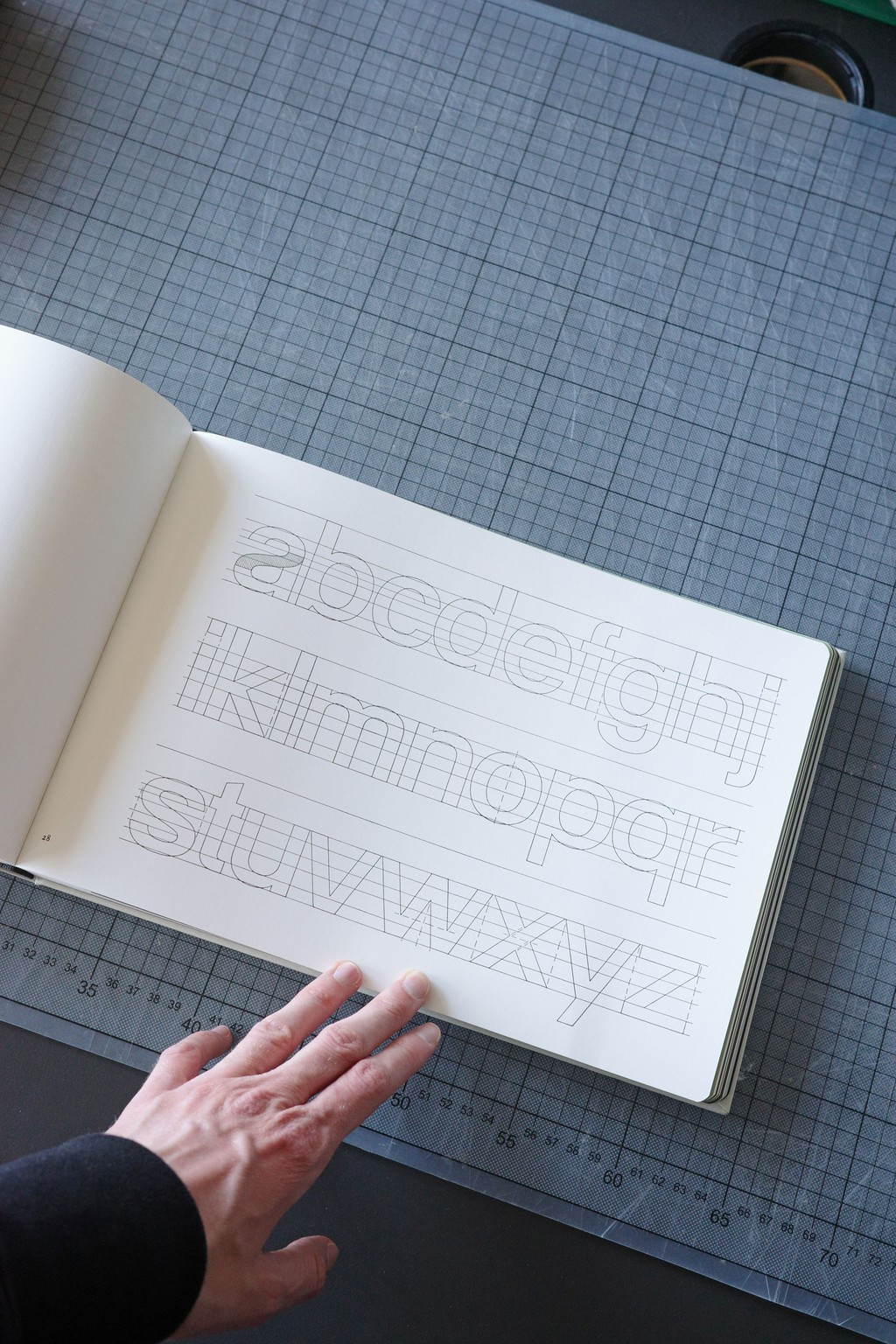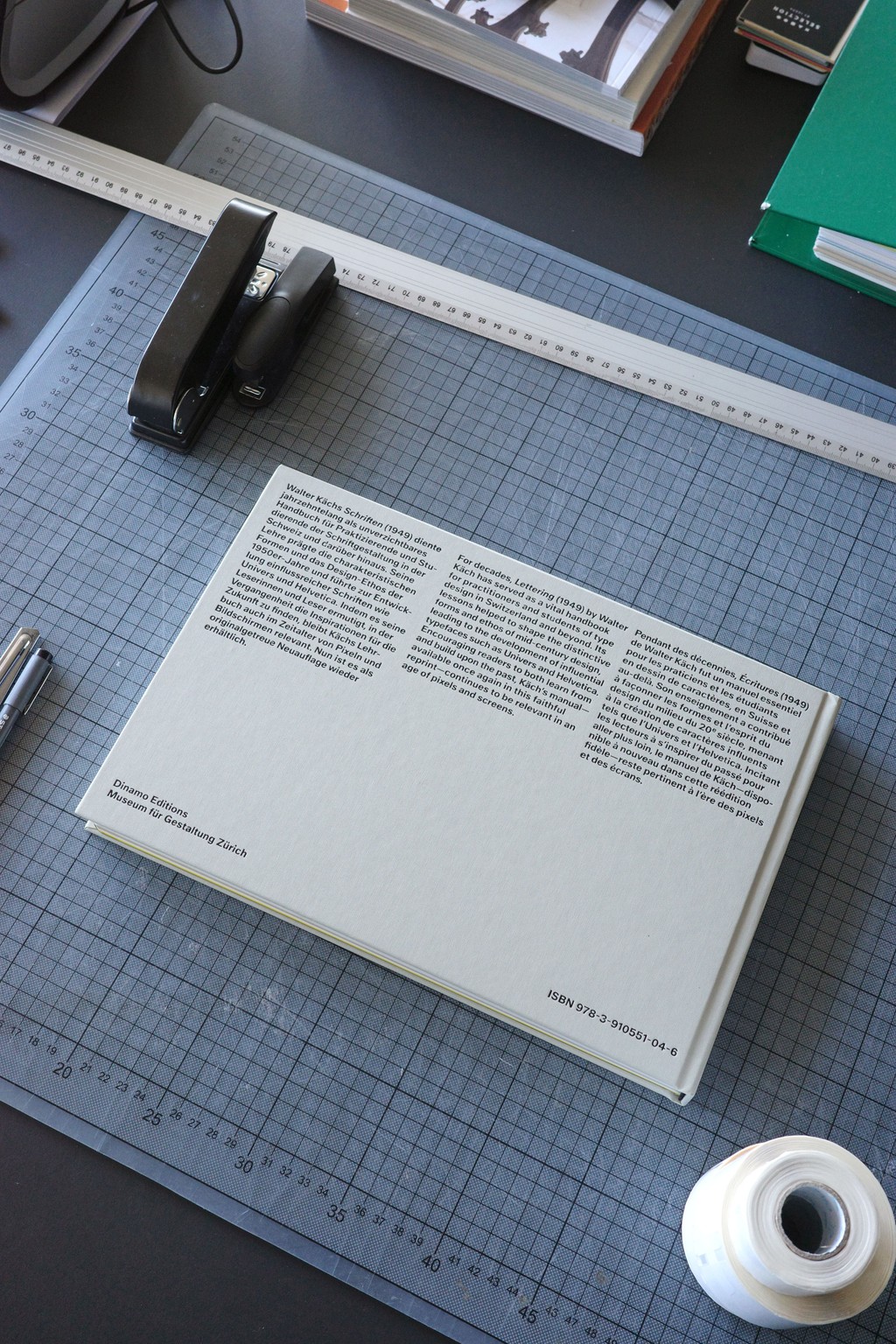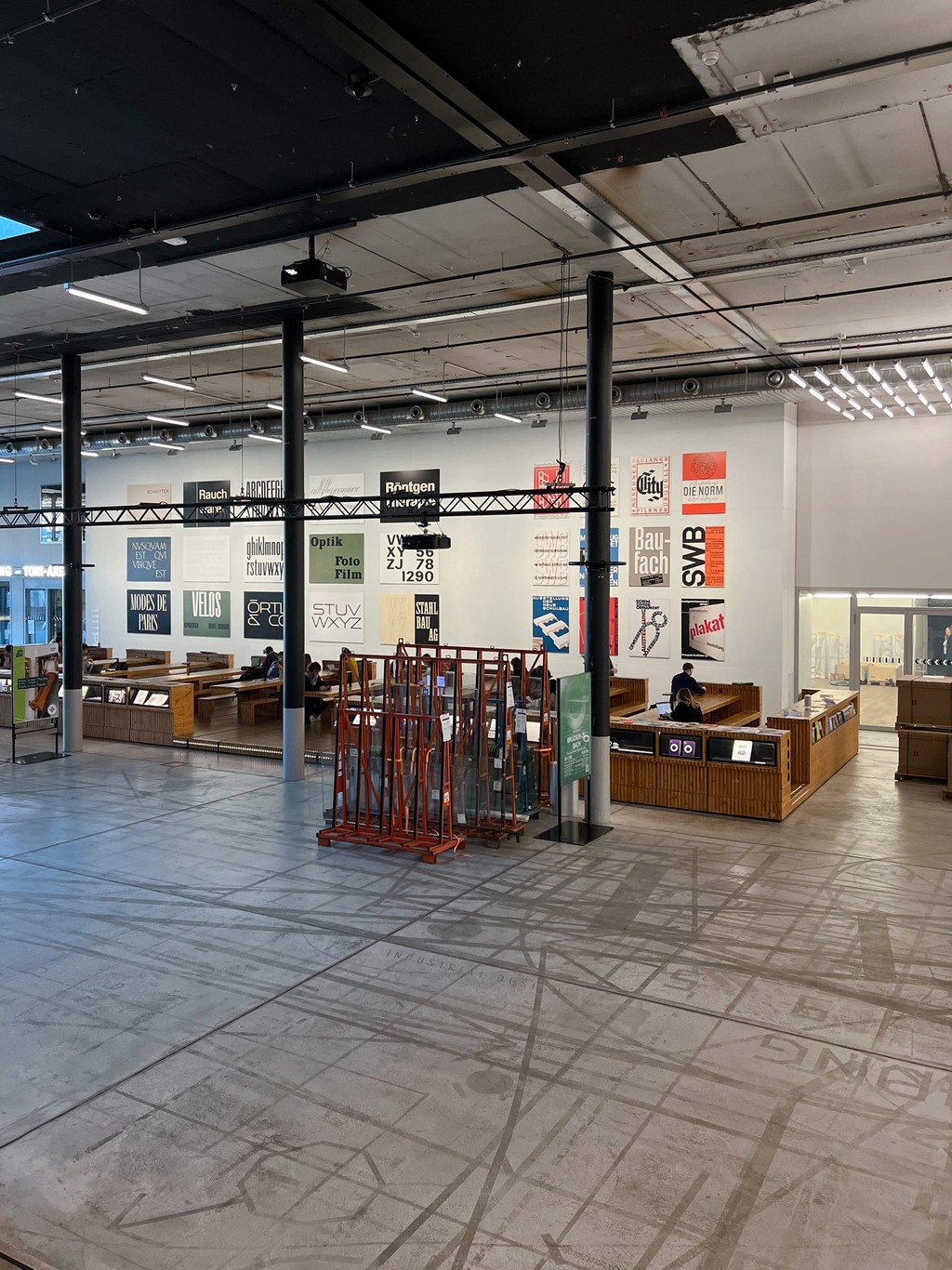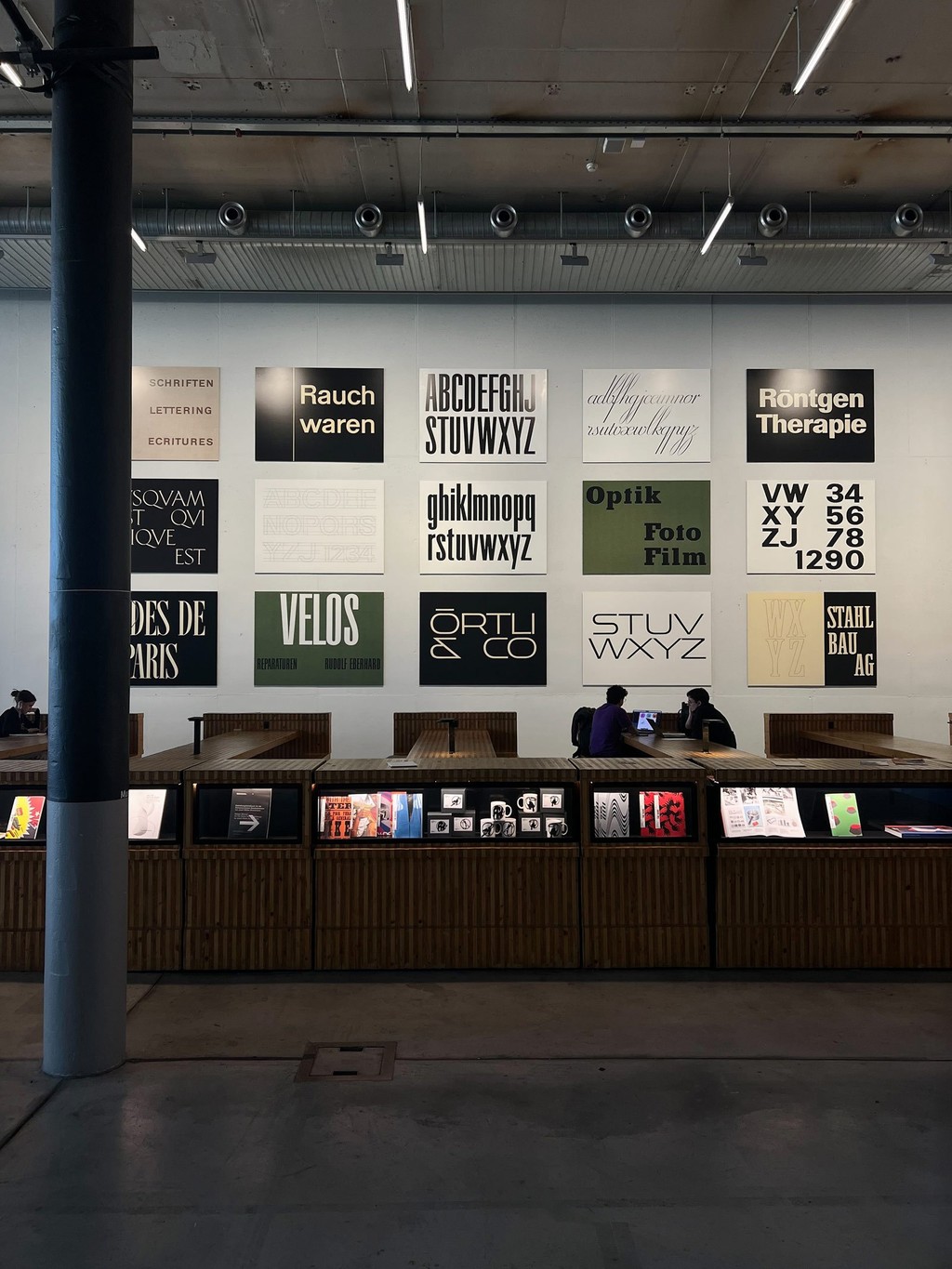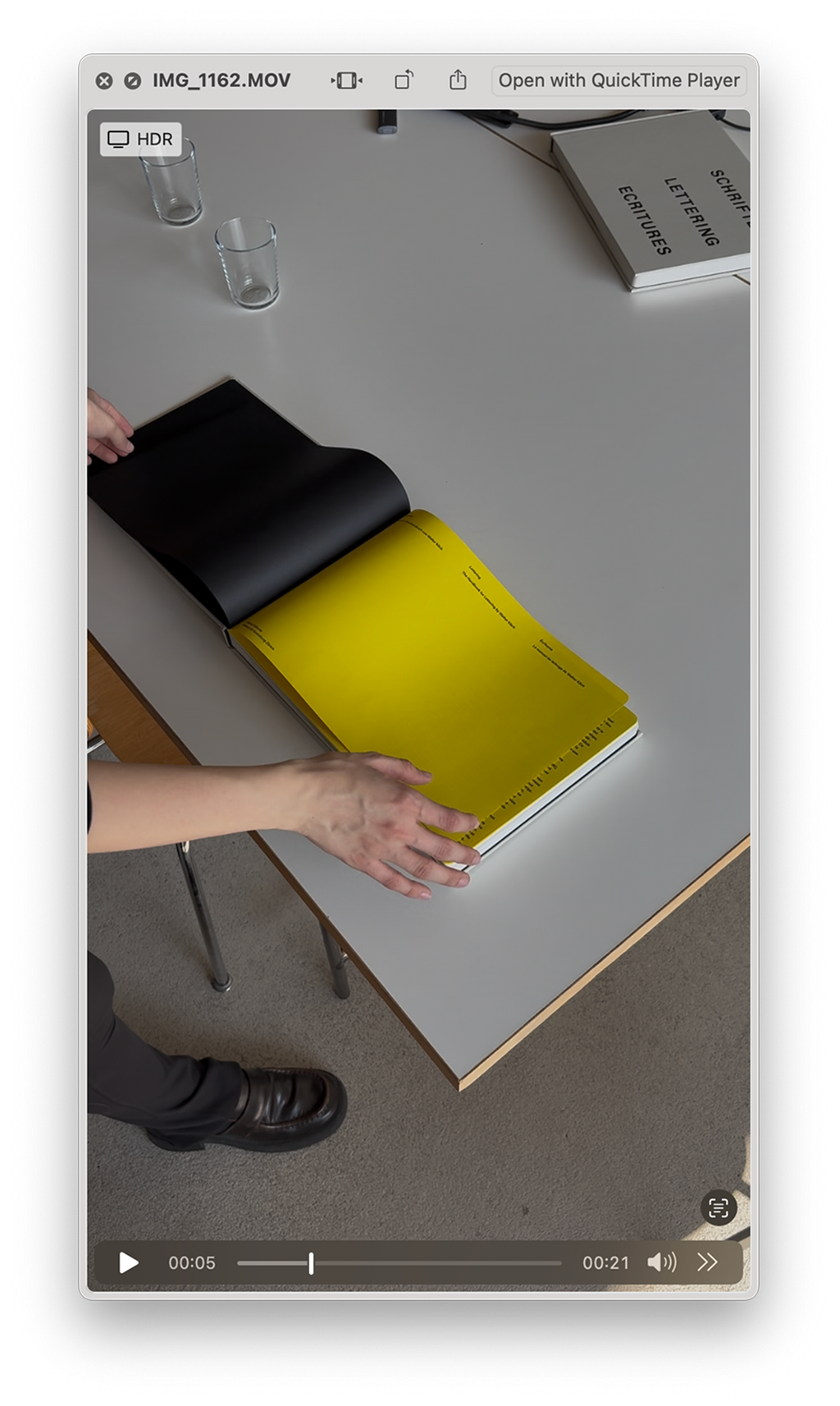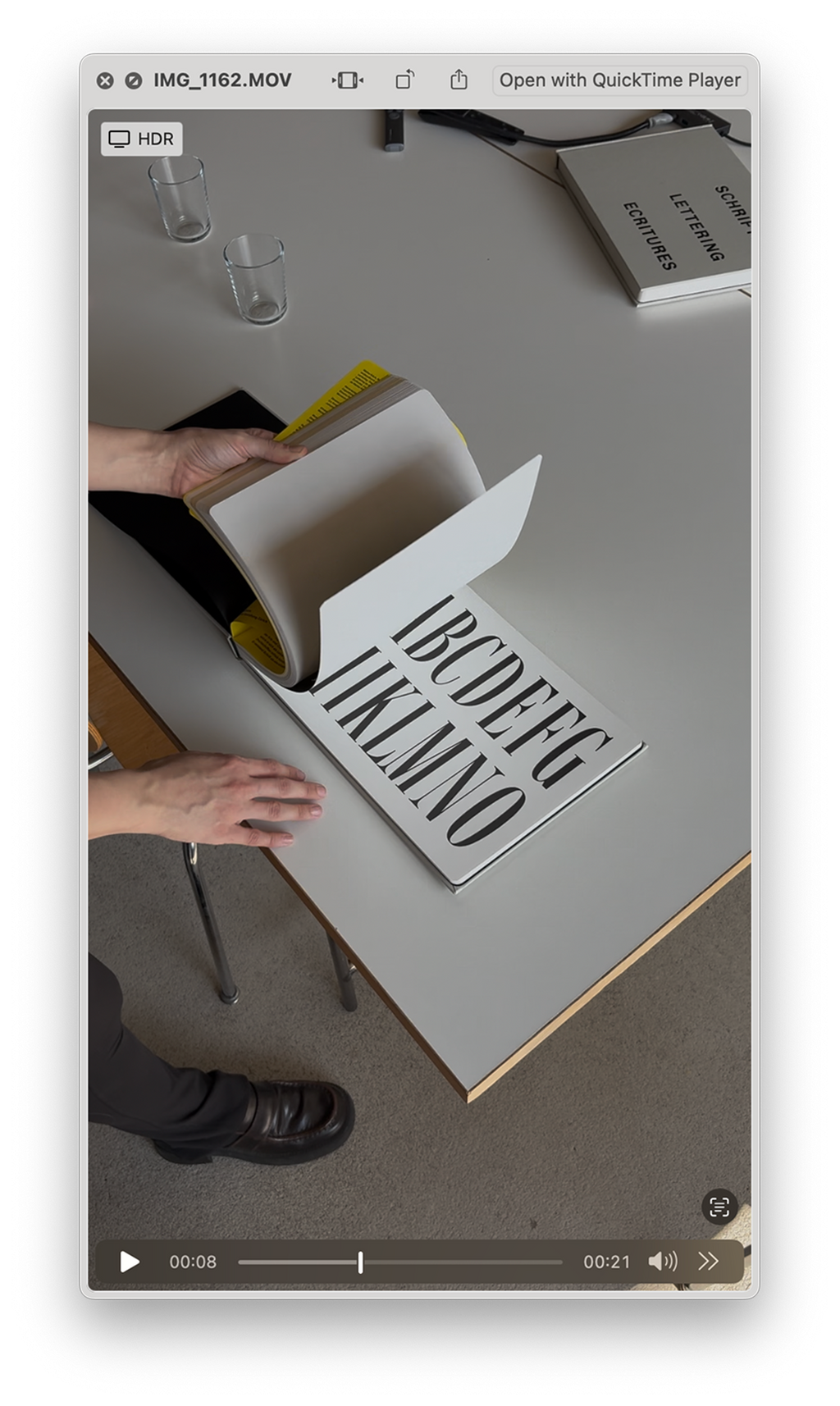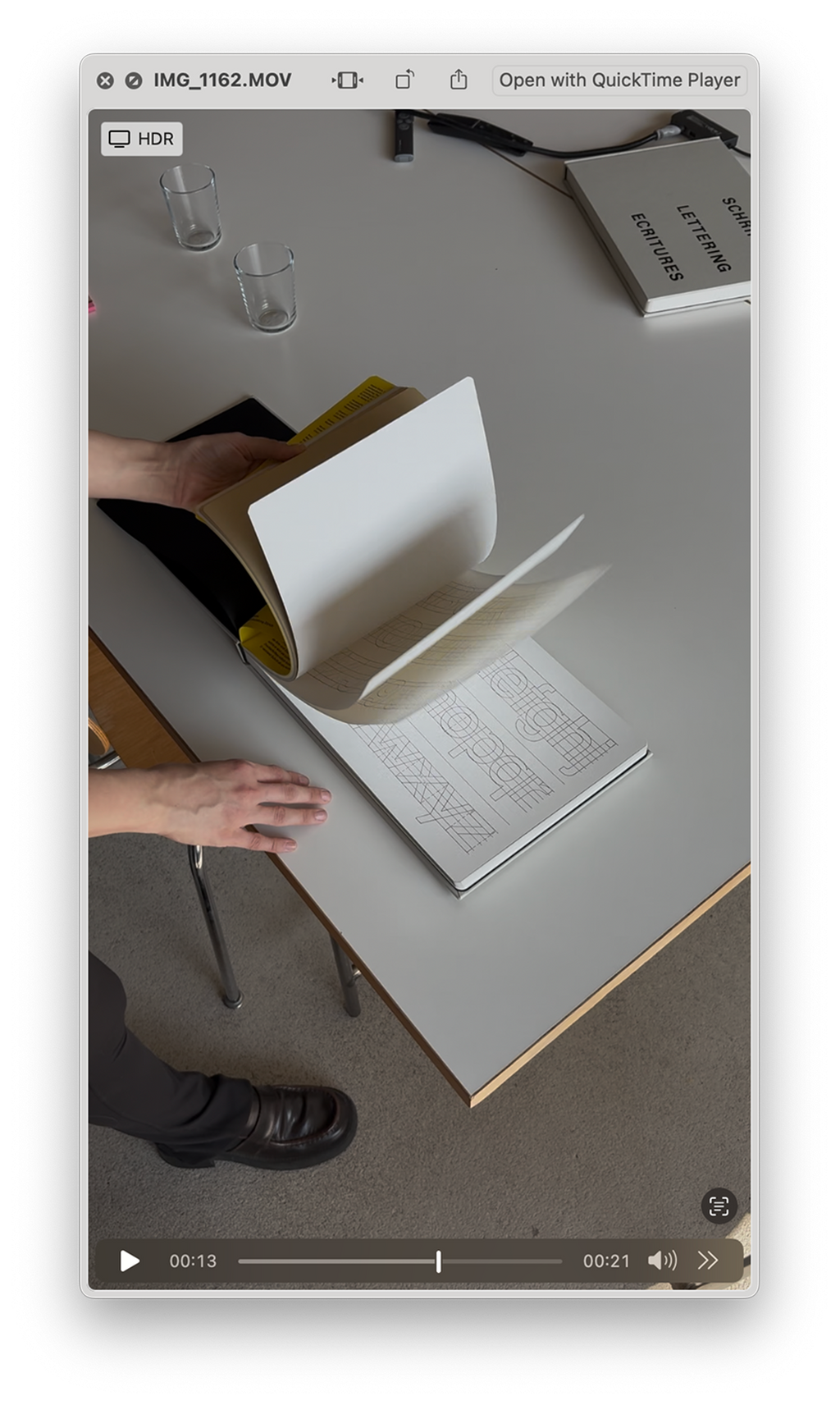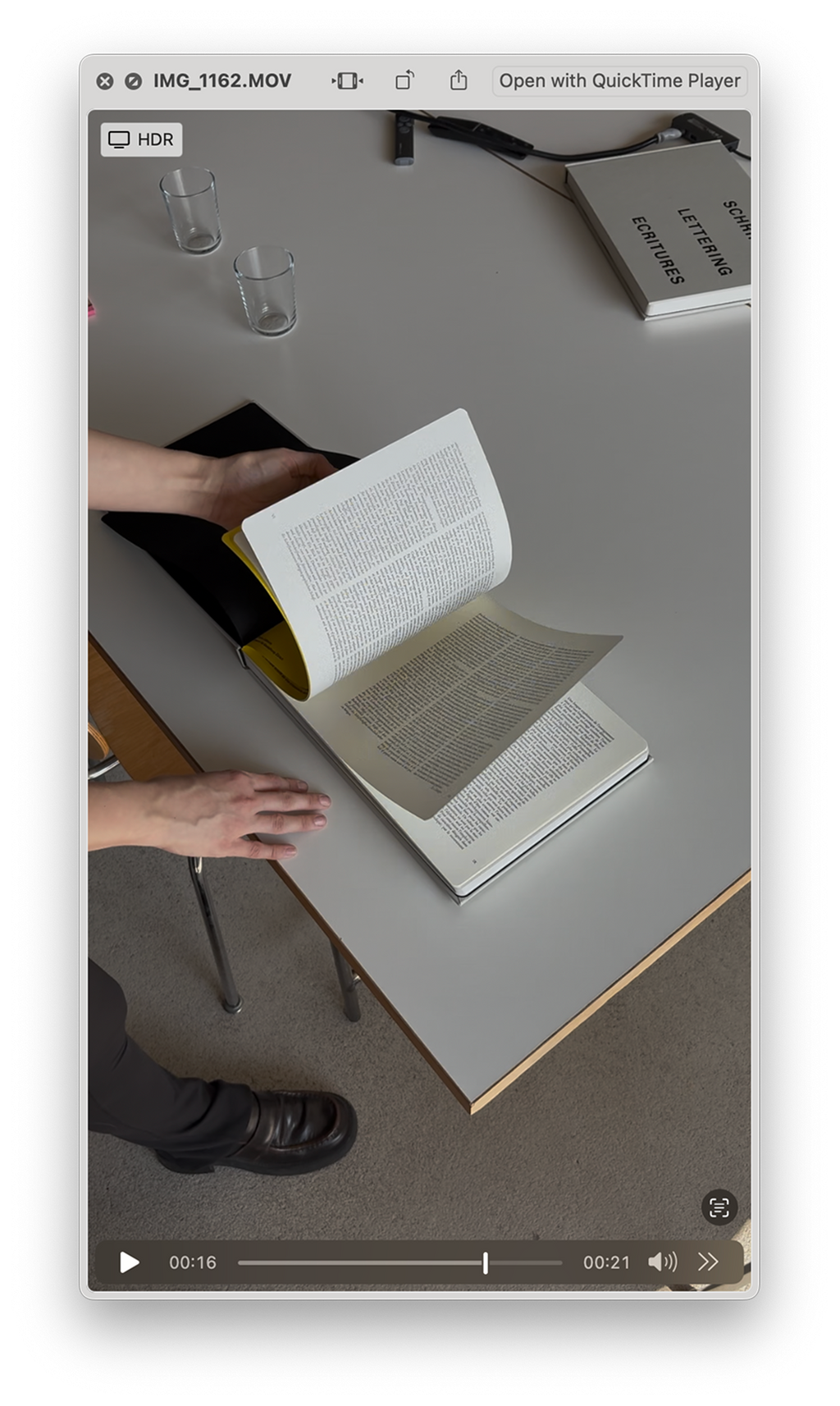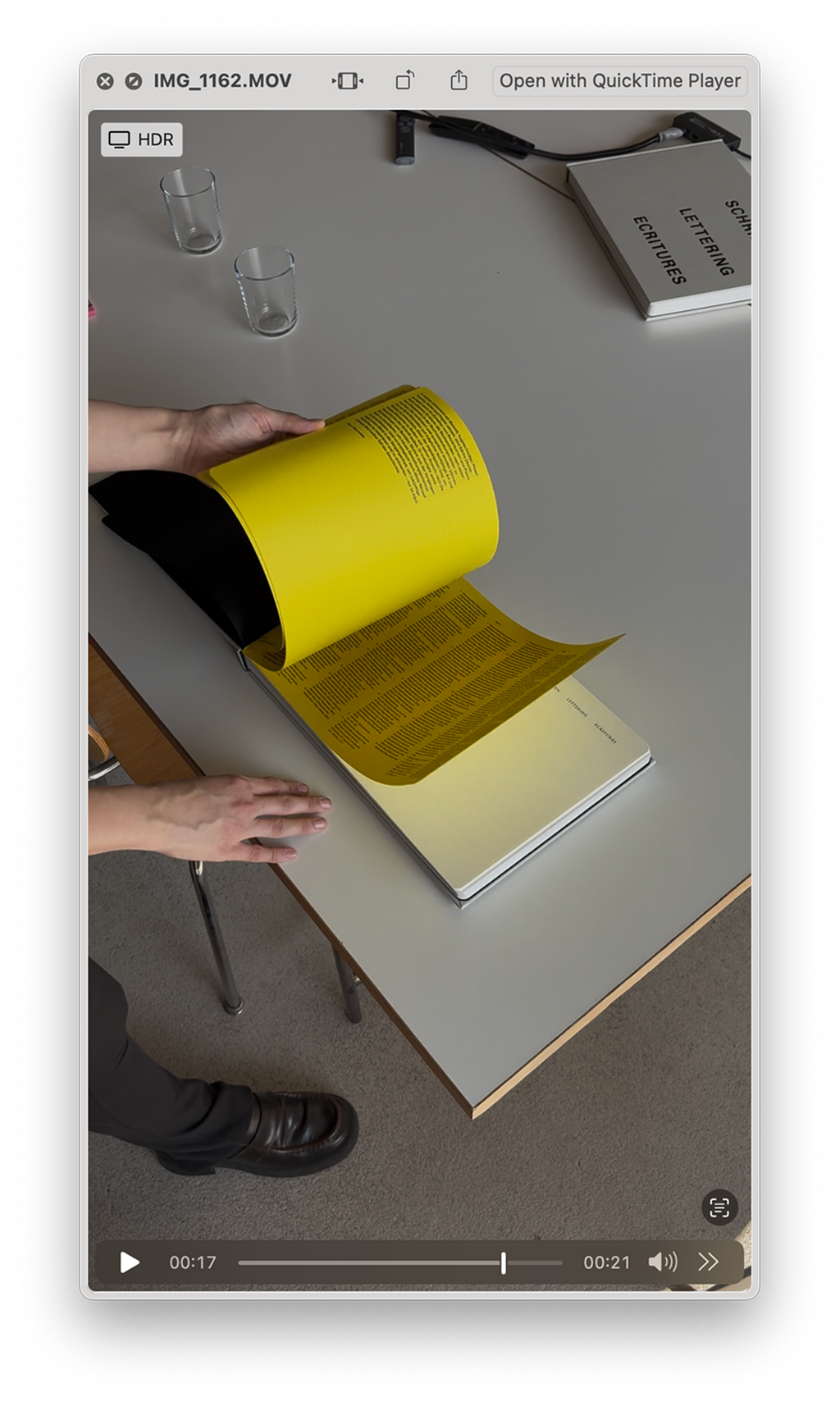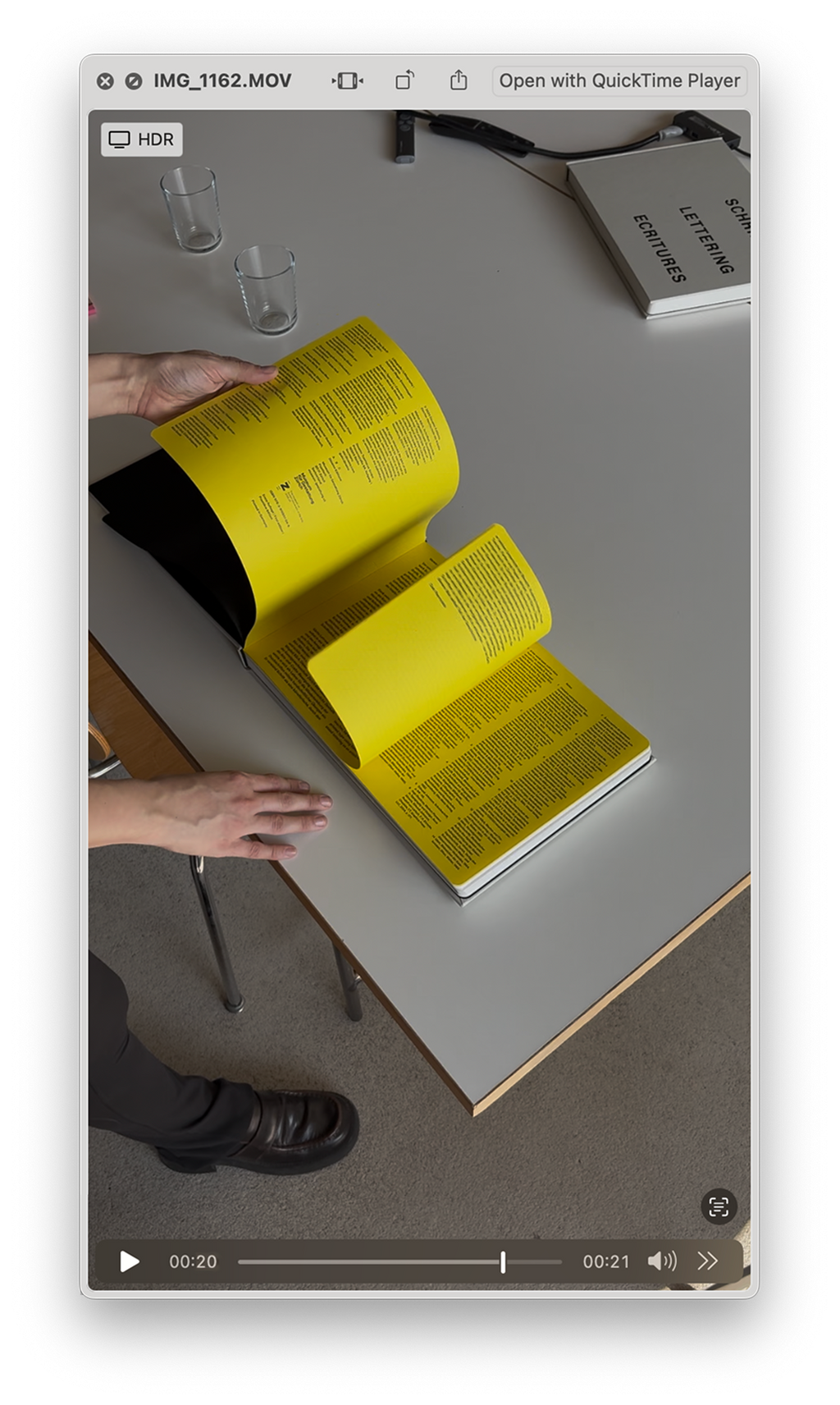
“Waiting for Walter” No More: A Reprint of Lettering by Walter Käch
“Waiting for Walter” no more. Today we’re releasing our reprint of Walter Käch’s Lettering into the world, a classic type textbook first published in 1949 that our imprint Dinamo Editions has co-published with the Museum für Gestaltung in Zurich.
This is the final puzzle piece of our Walter project, a long-standing, joint scholarly effort between us and our dear friends at Omnigroup. In 2022, we began by releasing our ABC Walter font family, an interpretation of the lessons found in Käch’s notoriously out of print textbook. And now, we’re republishing the manual ourselves, making its lessons available once again to a wider public.
For decades, Käch’s Lettering served as a vital handbook for practitioners and students of type design in Switzerland and beyond. It’s lessons helped shape the forms and ethos of mid-century design, leading to the development of typefaces like Univers and Helvetica. But — until today — the book has been near impossible to get hold of.
We ourselves learned a lot about letterform construction through tracing its pages. Käch taught designers to look for elements in the construction of letters that could be modified and built upon, allowing for the smooth development of typeface families. One of the richest places to find these elements, for Käch, was the history of writing itself, and he encouraged his students to recycle past motifs to unlock new design potential. You can read our editor Maddy’s essay on the history of the manual here.
Our reprint includes a new introduction by type historian and friend Dan Reynolds and a foreword by the MfG’s curator of the graphic collection Barbara Junod. All the new material is trilingual, just like the original.
For anyone in Zurich this month, a pop-up exhibition of Käch’s scripts and posters at the Museum für Gestaltung — on until May 25 — ties to this publication’s release.
We really—really—couldn’t have done this without Simon and Leo at Omnigroup: they designed and produced this perfect bound beauty, with its fresh yellow intro, Munken Print Cream and Arena Smooth Natural paper stocks, rounded corners, and Pantone offprint printing. Sticky-proof cloth protects the hardback from student fingers and repeated use.